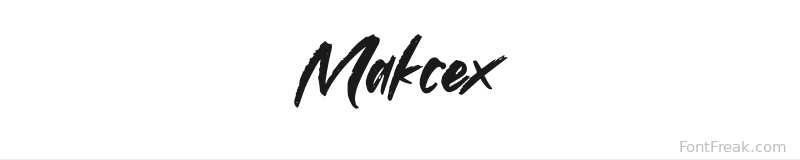
Makcex
About Makcex
Makcex by Syaf Rizal is a striking display font that blends contemporary flair with artistic expression. As a decorative font, it captures the eye with its unique, hand-drawn appearance, making it a perfect choice for projects that require a personal touch. The visual characteristics of Makcex include varied stroke weights that lend a dynamic quality to the letters, combined with a playful yet elegant design. The fluidity of the strokes and the slight irregularities in spacing enhance its handcrafted feel, giving it a distinct personality.
This font excels in a variety of use cases, particularly in creative environments. It is ideal for wedding invitations, where its elegant and bespoke style can add a romantic touch. Additionally, Makcex works beautifully for movie posters, capturing the audience's attention with its bold yet sophisticated aesthetic. Restaurant menus can also benefit from its unique flair, offering a captivating way to present culinary delights. Content creators will find it particularly useful for social media graphics and promotional materials, as it stands out in crowded feeds.
Targeting graphic designers, small business owners, and content creators, Makcex invites creativity and personal expression. Its versatility allows users to adapt it to a wide range of projects, whether formal or casual.
What makes the Makcex font particularly noteworthy is its ability to convey emotion and authenticity. Unlike many standard typefaces, Makcex carries the essence of hand-crafted artistry, making it a standout choice for anyone looking to inject personality into their designs. With the Makcex font free download, you can elevate your projects and make a memorable impression with ease.